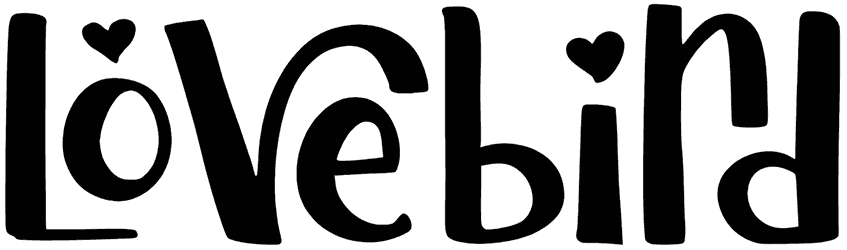
Lovebird Font
If you are interested in making your design romantic and lovely, don’t miss this playful option. As a decorative font, Lovebird has a chunky and adorable lettering face that will throw a happy vibe into your words. This love font doesn’t support most numbers, but is still able to display various items, namely postcards, packaging, social media posts, and so forth.